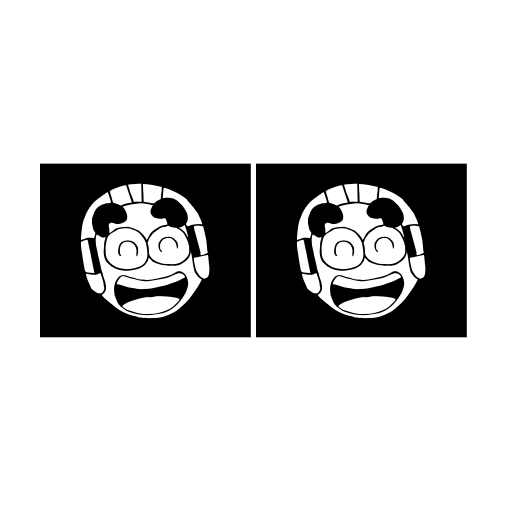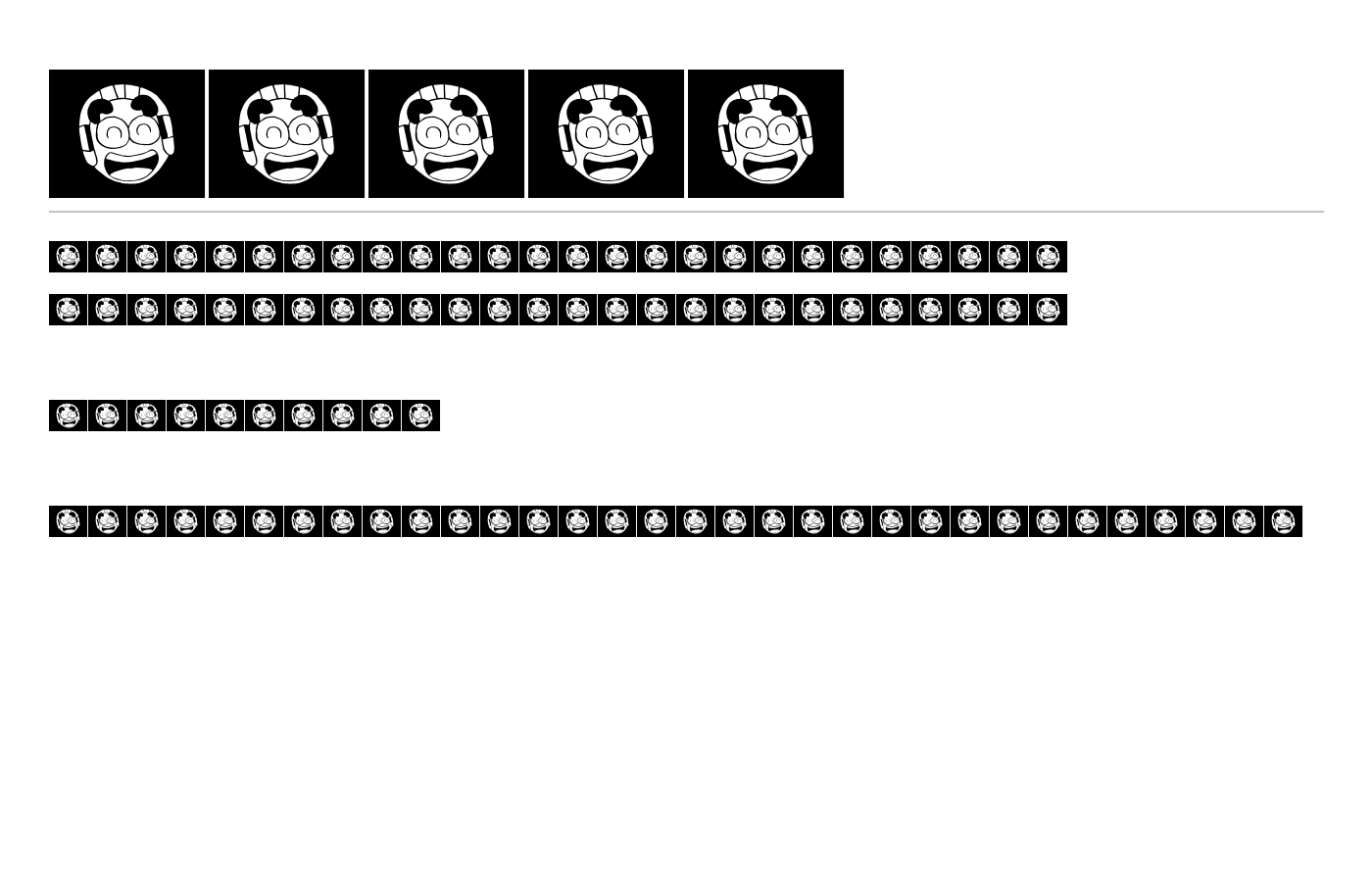
The BOGOR font is a playful and whimsical display typeface featuring a cartoonish character face as its primary glyph, making it unique and highly expressive. Its bold, uniform shapes and fun personality are perfect for creative projects, children's content, or branding that aims to convey friendliness and humor. This font works best in logos, posters, or any design that benefits from a lively and eye-catching visual element.
BOGOR Font
About BOGOR Font